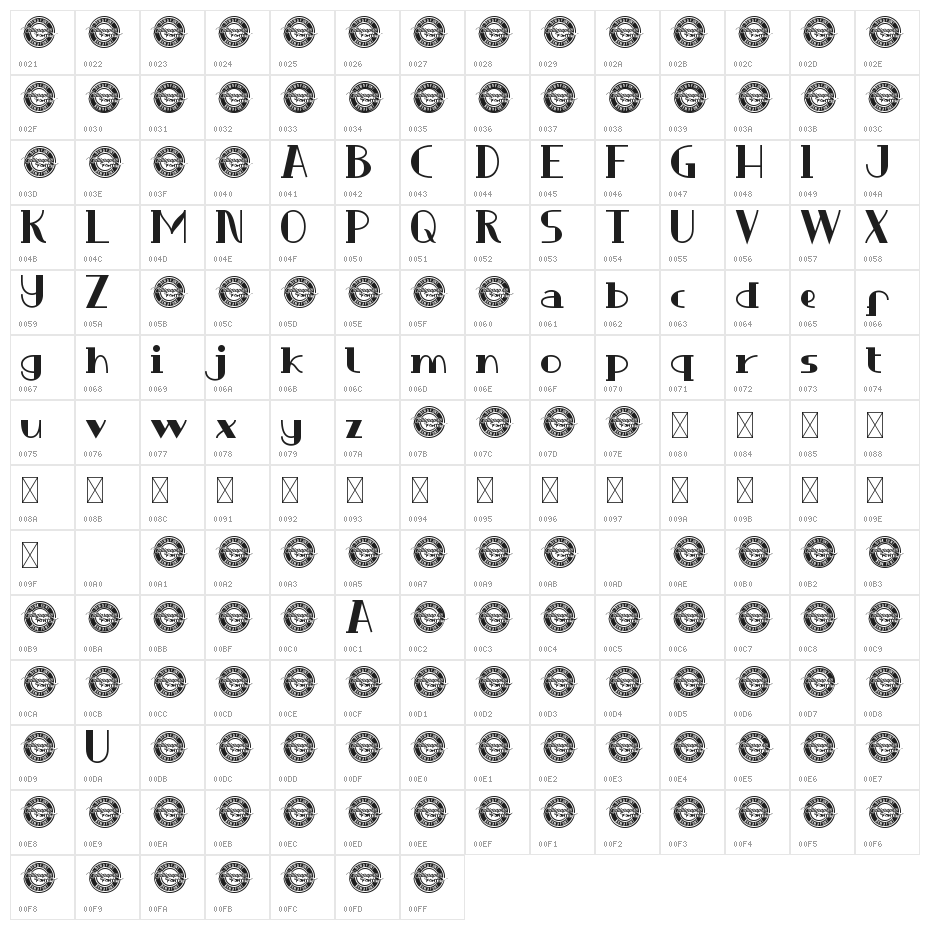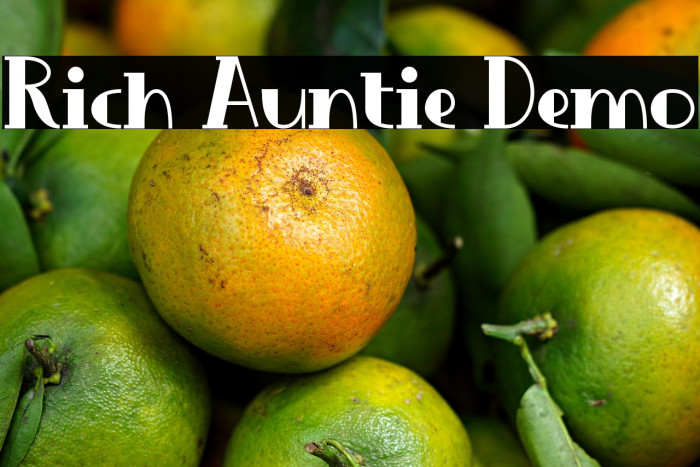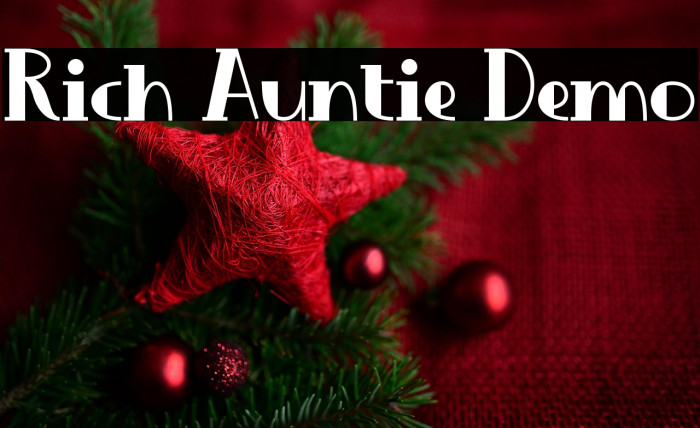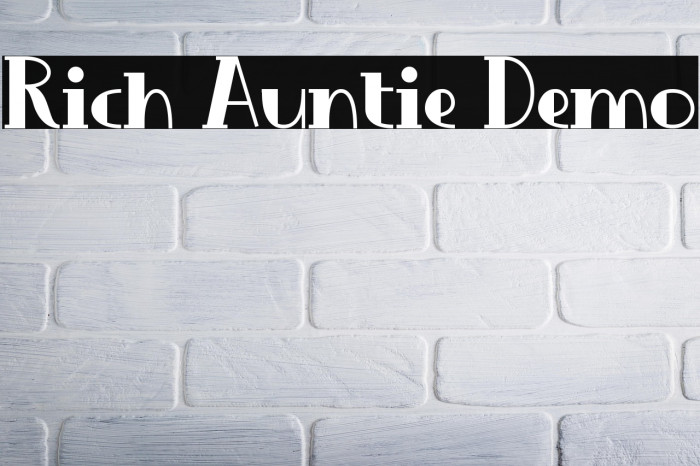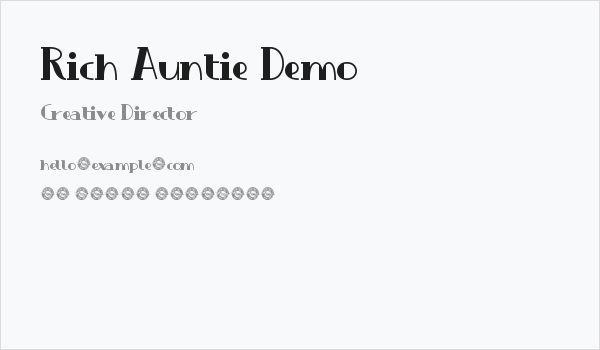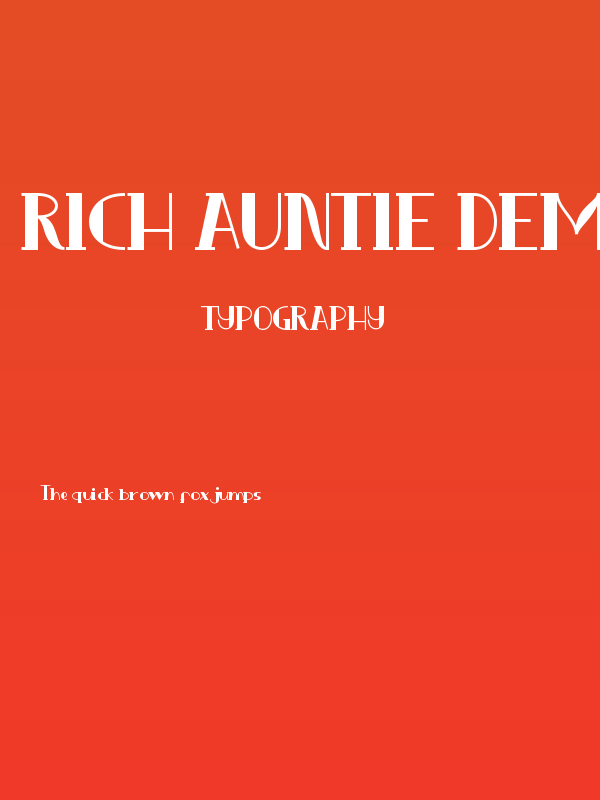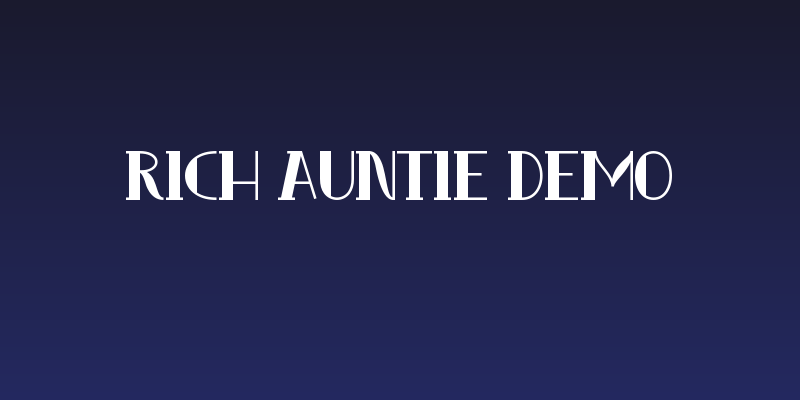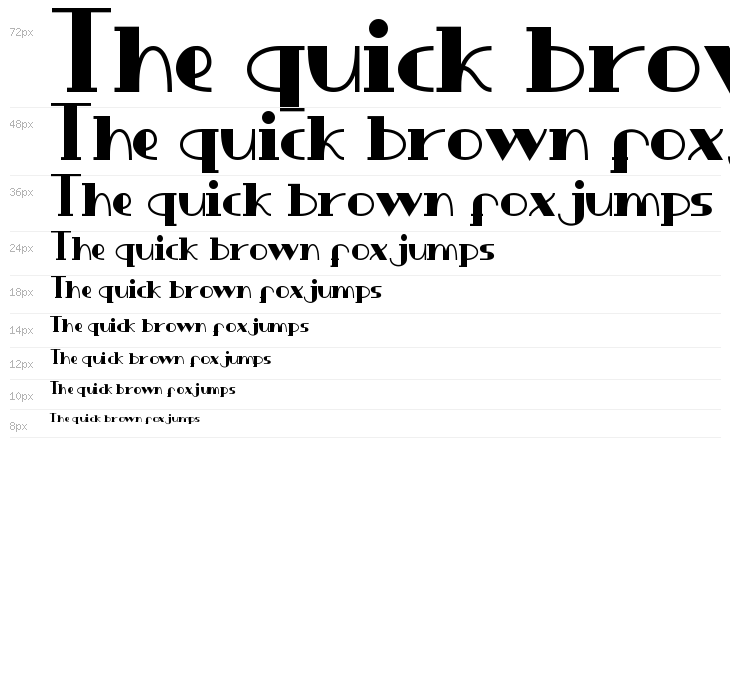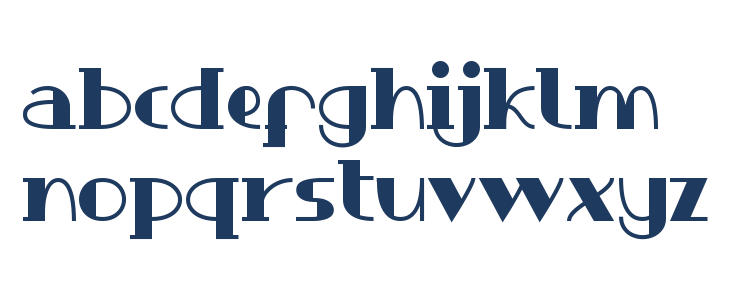
Rich Auntie Demo Font
Rich Auntie Demo Description
This font exudes a unique blend of modernity and elegance, characterized by its bold and striking letterforms. The uppercase letters feature a distinct geometric influence with sharp angles and clean lines, while the lowercase letters maintain a more fluid and rounded appearance. The font's design incorporates a high contrast in stroke thickness, adding to its dramatic and eye-catching appeal. The overall style is both sophisticated and contemporary, making it suitable for a variety of design applications. Its distinctive character spacing is slightly tight, enhancing the boldness of each letter.
| Proposed Projects | Ideal for branding, headlines, posters, and editorial design where a strong visual impact is desired. |